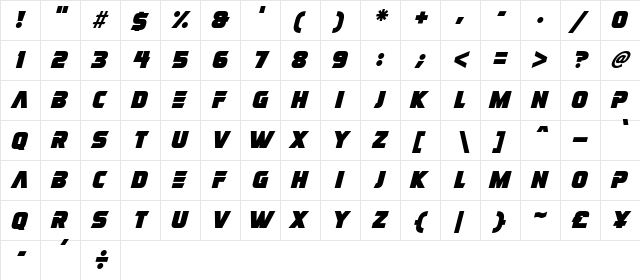
Never Better Italic Font Preview
Never Better Italic
Design Context for Never Better Typeface
Never Better takes a measured approach to typography — its balanced proportions and neutral character make it a reliable workhorse for both digital and print work. Its italic angle brings a sense of urgency and motion to the letterforms.
Pro Tip: Try Never Better for annotation and caption copy alongside an upright companion — the contrast in angle creates a dynamic but ordered typographic system.